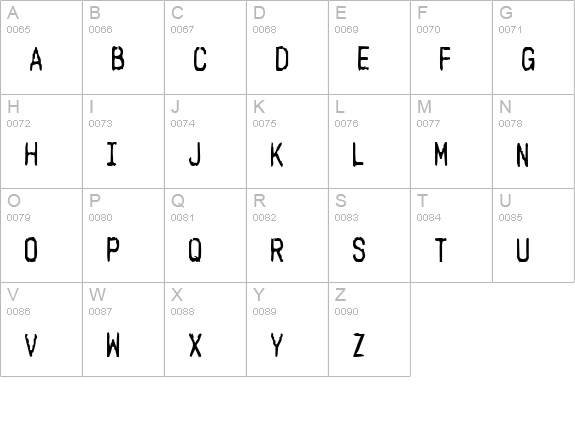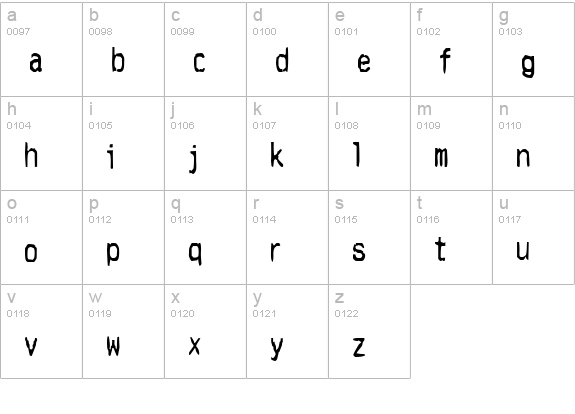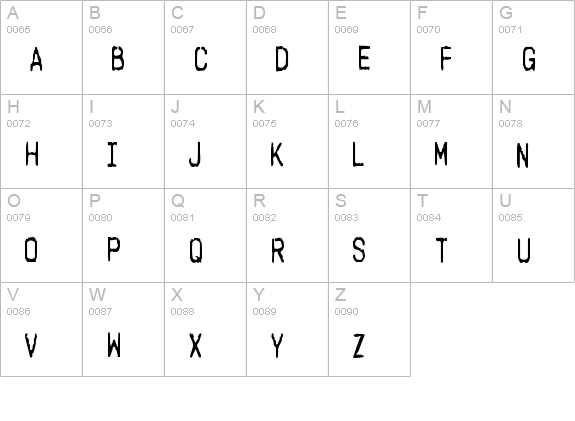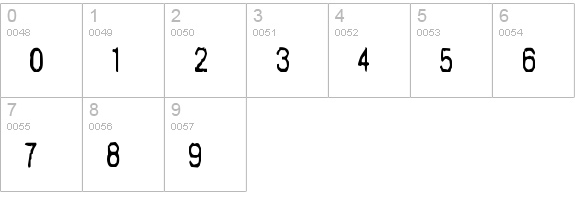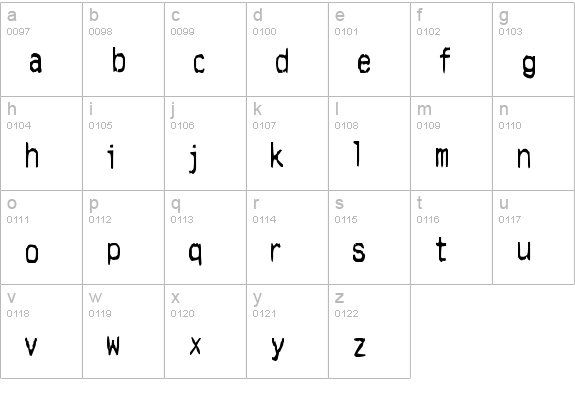
Harsh language Font Details
Introducing the Harsh Language font, a bold and expressive typeface that captures the raw power of words. This font is designed to make a statement, leaving an indelible impression on any project it is used in. With its sharp edges and aggressive style, Harsh Language demands attention and commands authority. It embodies the essence of rebellious spirit, perfect for conveying strong emotions and making a bold statement. Not only does Harsh Language stand out from the crowd, but it also offers the added benefit of being freely available to download at FontsMarket.com. Yes, you read that right – this incredible font can be yours at no cost, allowing you to add a touch of edgy sophistication to your designs without breaking the bank. Whether you're designing a poster, logo, or any other creative project, Harsh Language will elevate your work to new heights. Its versatility allows it to be used in a variety of contexts, from advertising campaigns that demand attention to editorial layouts that require an element of grit. So, don't miss out on this opportunity to download Harsh Language for free at FontsMarket.com. Let your words speak louder than ever before with this captivating font that is sure to leave a lasting impression.